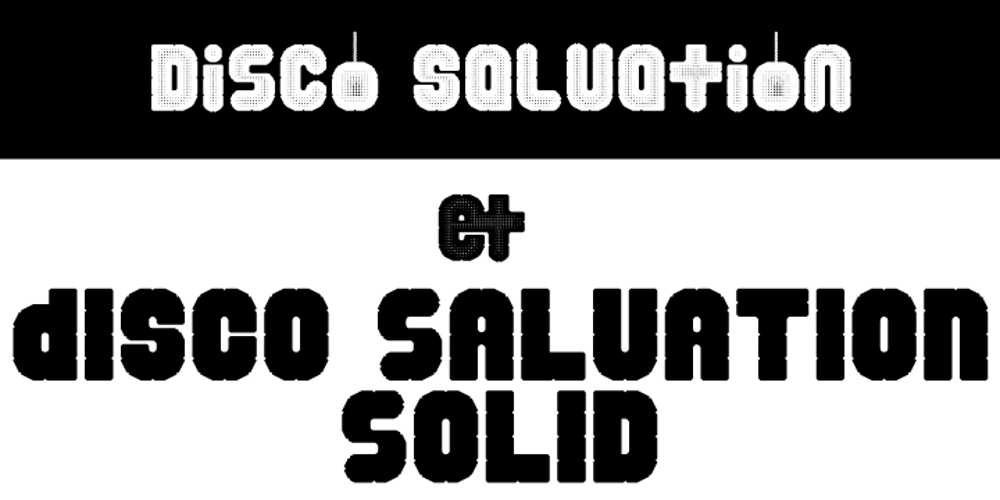
Disco Salvation Font Family was designed by Wilson Thomas and published by Funk King. Disco Salvation contains 2 styles and family package options. Disco Salvation and Disco Salvation Solid are two display faces inspired by the fun and funky disco era and disco balls. The Regular version uses the grid pattern to achieve the disco ball effect; the white space of the grid is transparent and will allow any image beneath the type to appear through the grid holes.